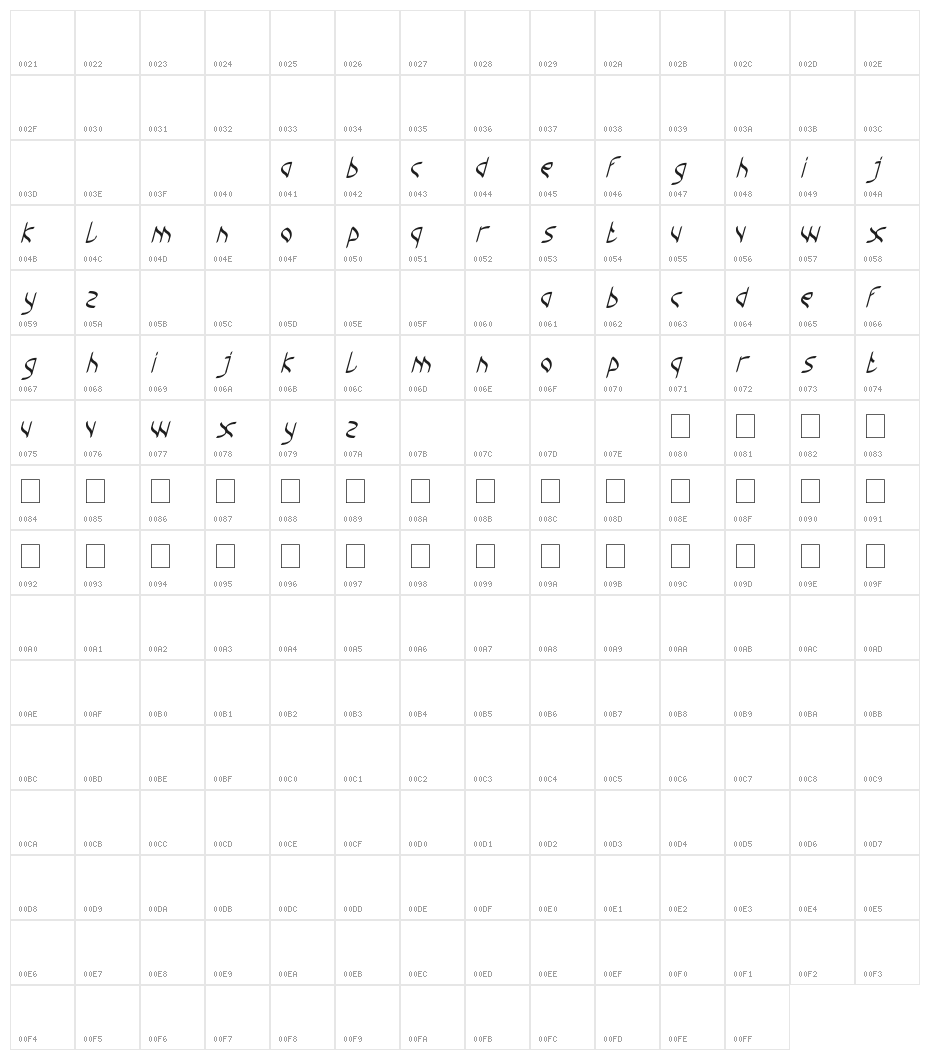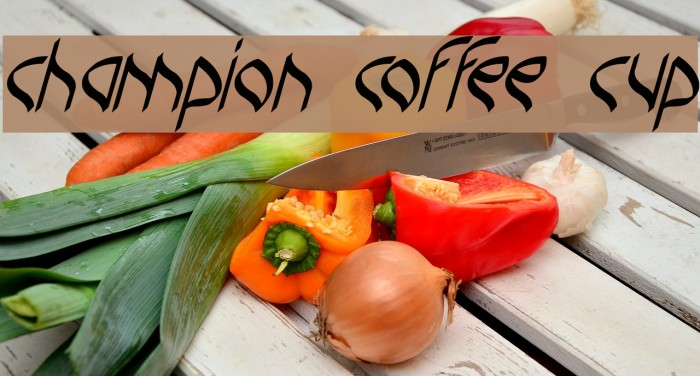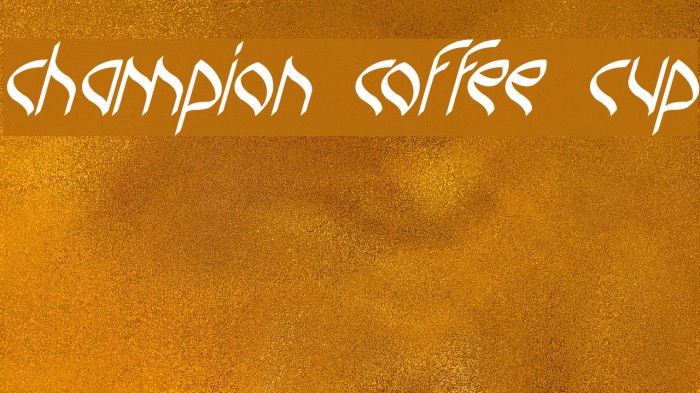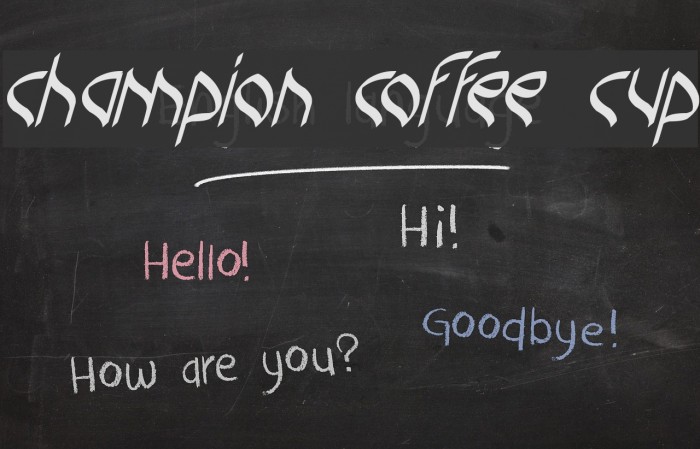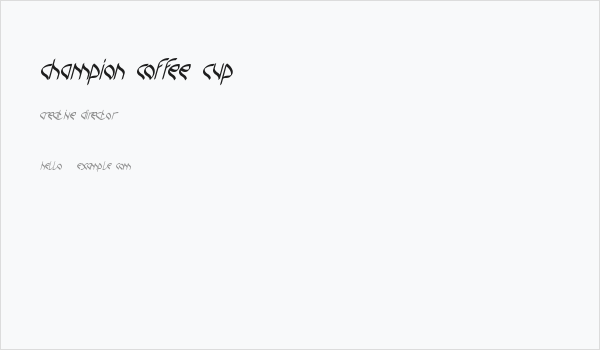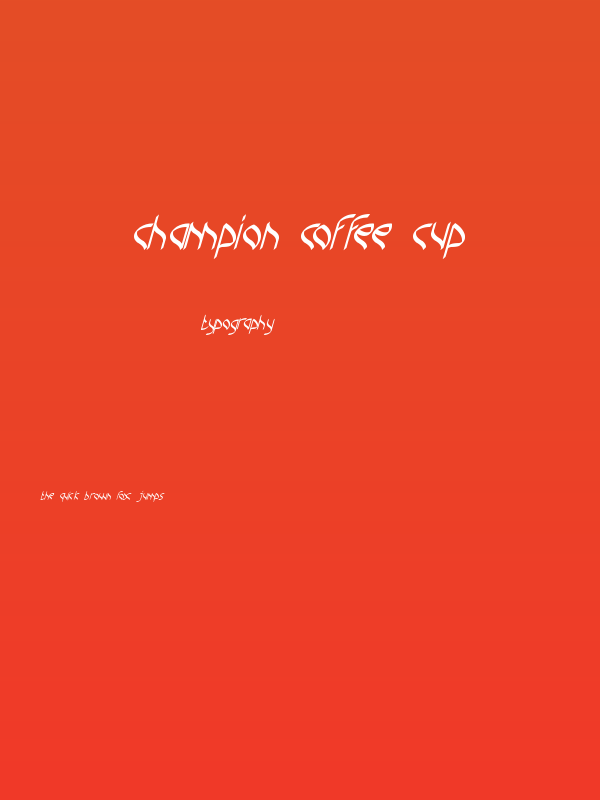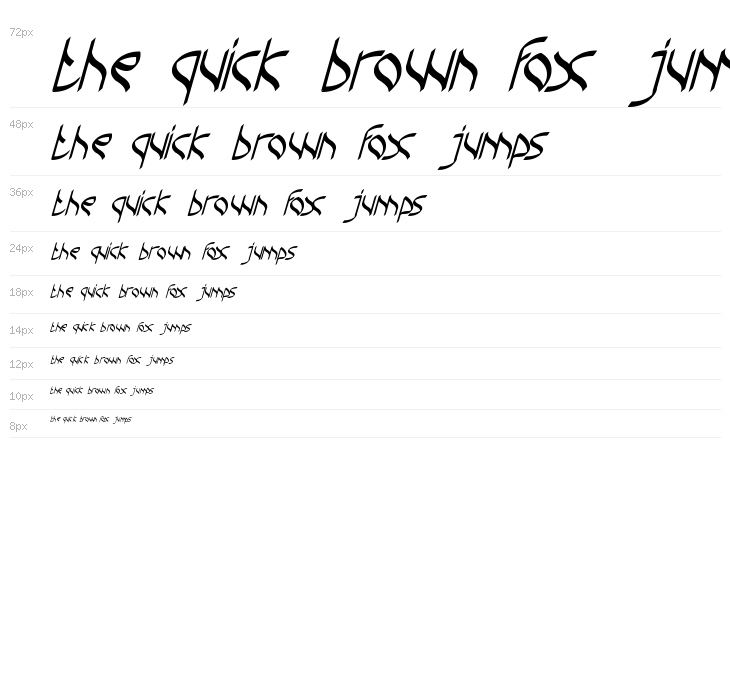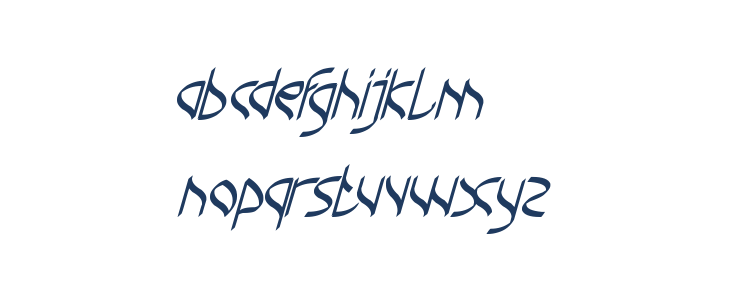
champion coffee cup Font
champion coffee cup Description
This font features a dynamic and edgy design, characterized by sharp, angular strokes and a sense of movement. The letters are slightly slanted, giving a forward momentum that suggests speed and energy. The unique style combines elements of calligraphy with a modern twist, making it stand out with its bold and artistic flair. Each character is distinct, with varying line thickness that adds a touch of unpredictability and creativity. The overall appearance is both aggressive and stylish, making it suitable for projects that require a strong visual impact.